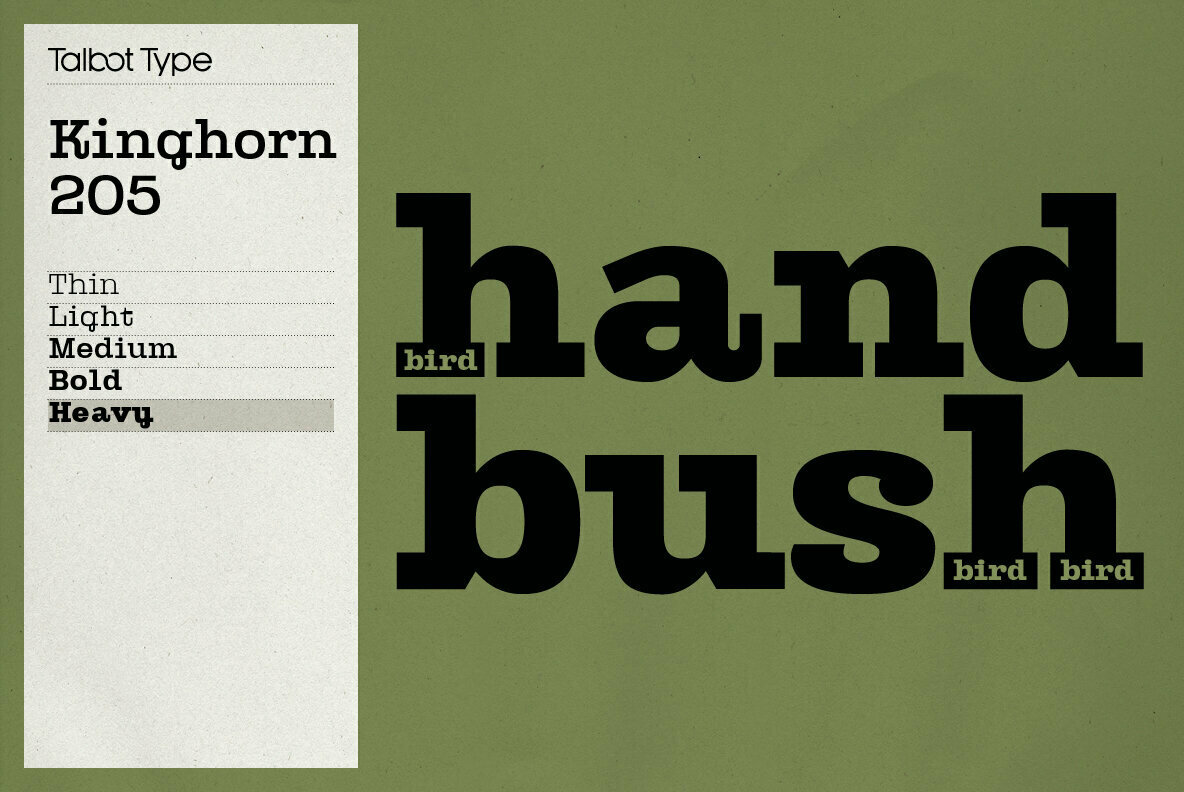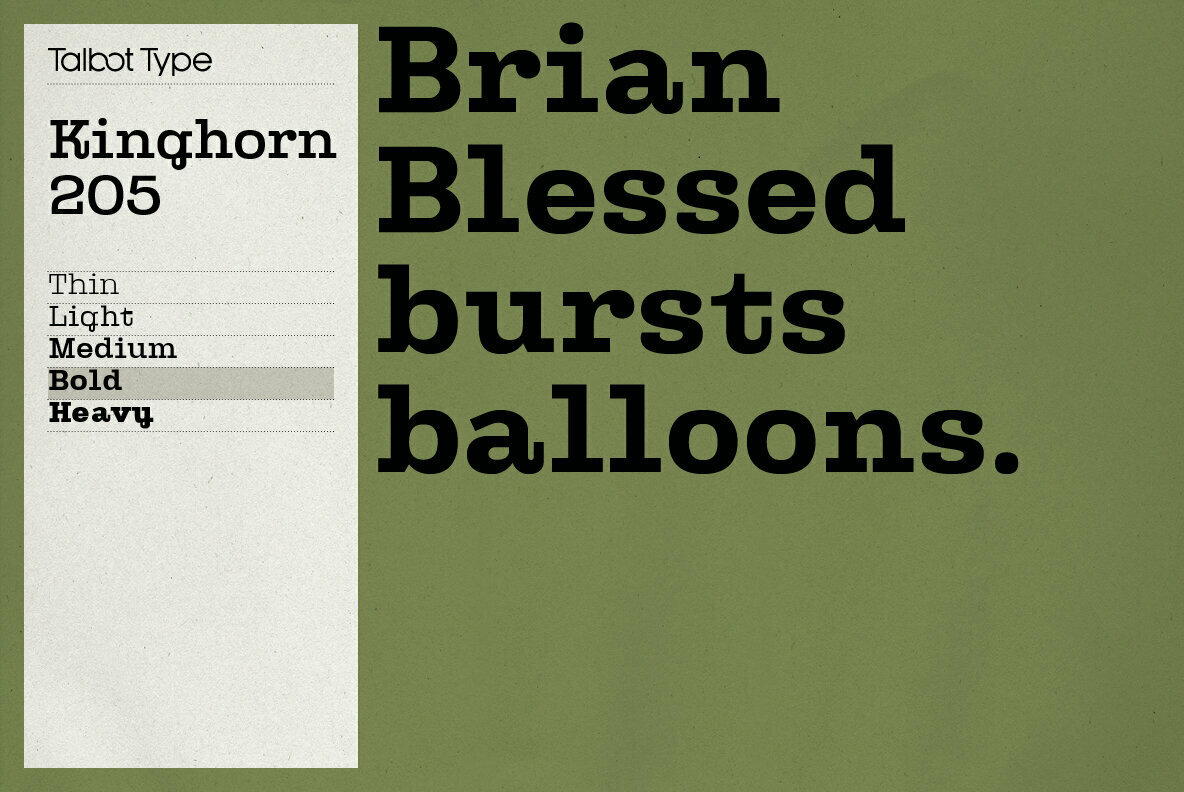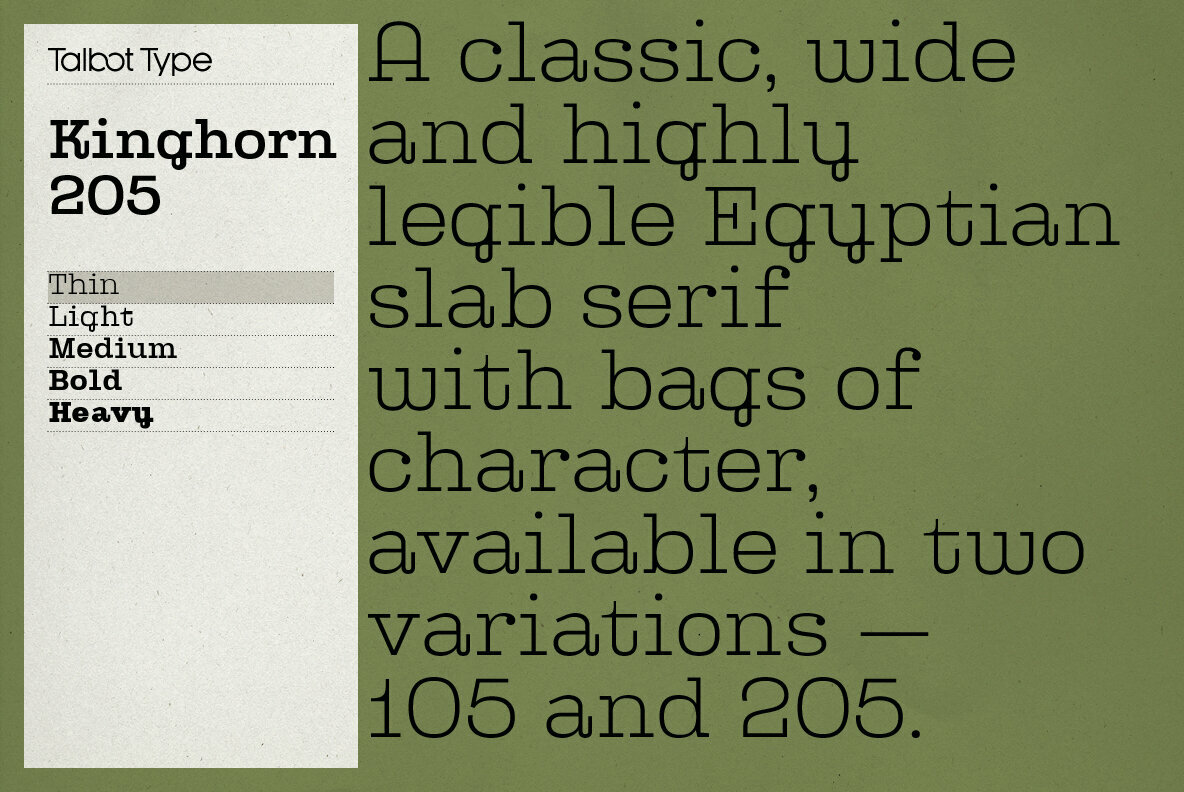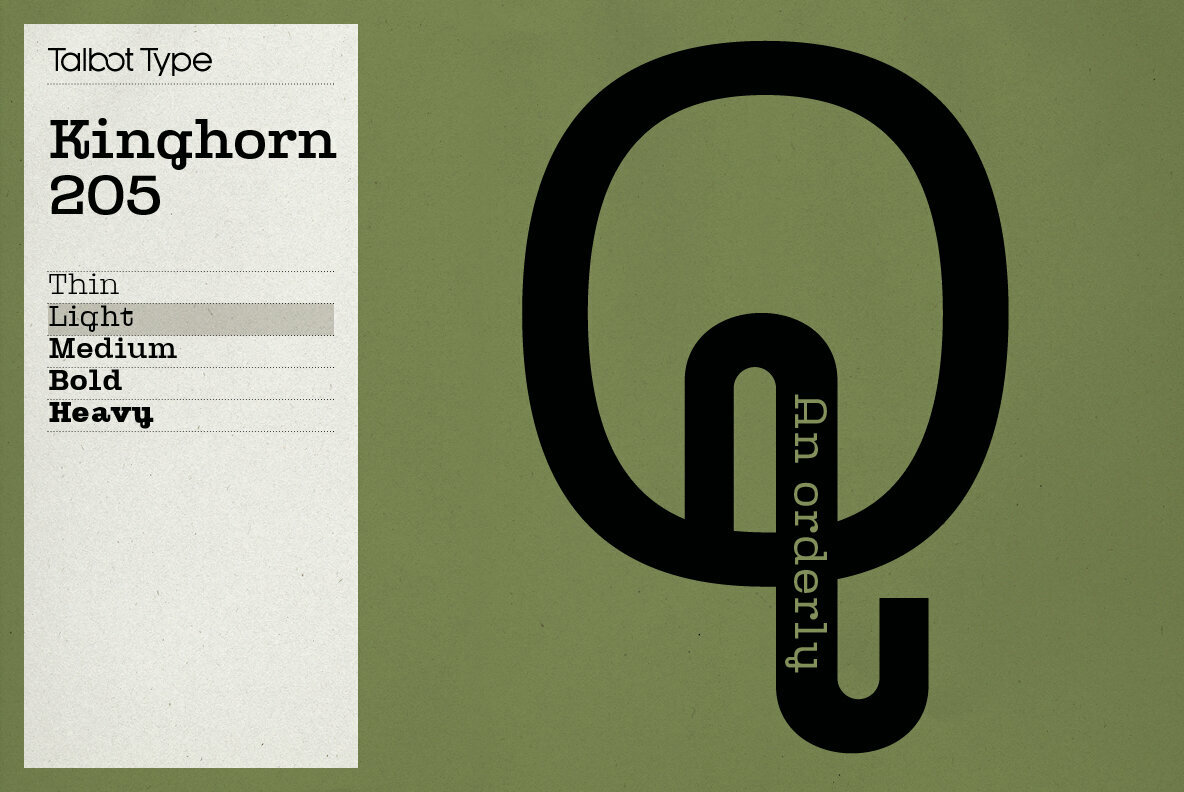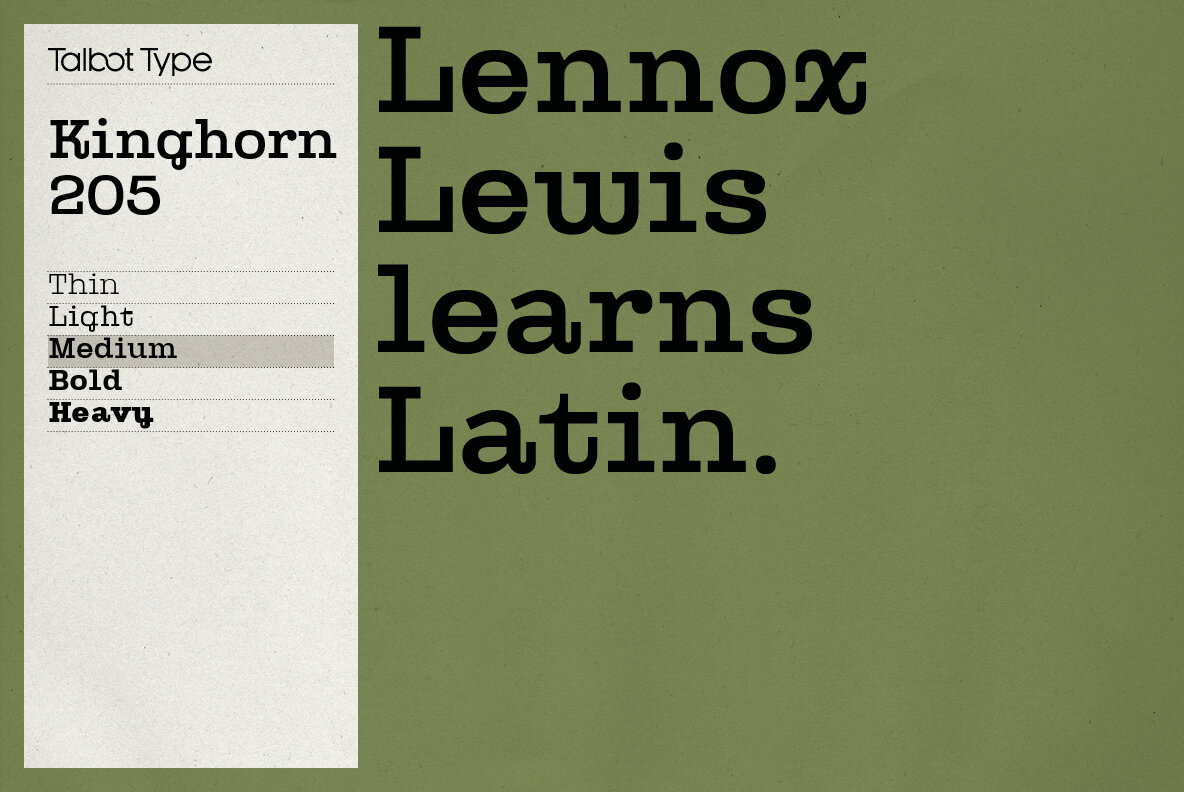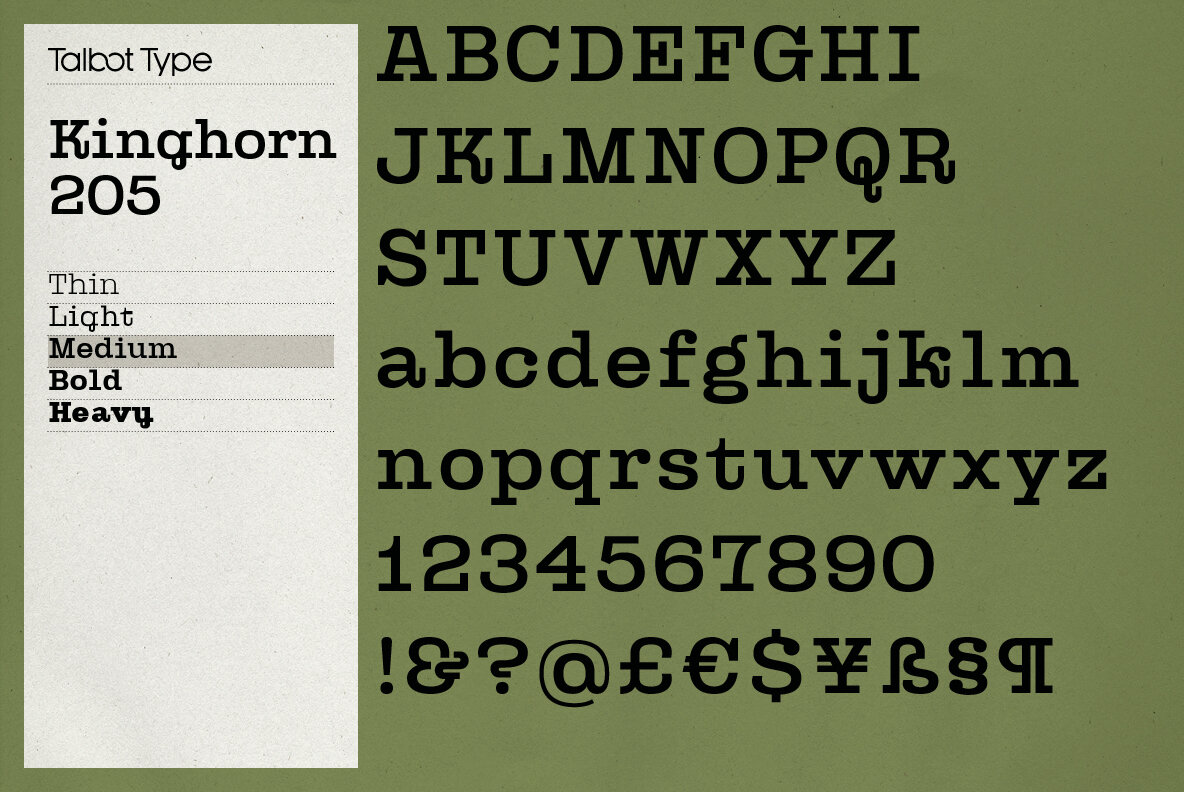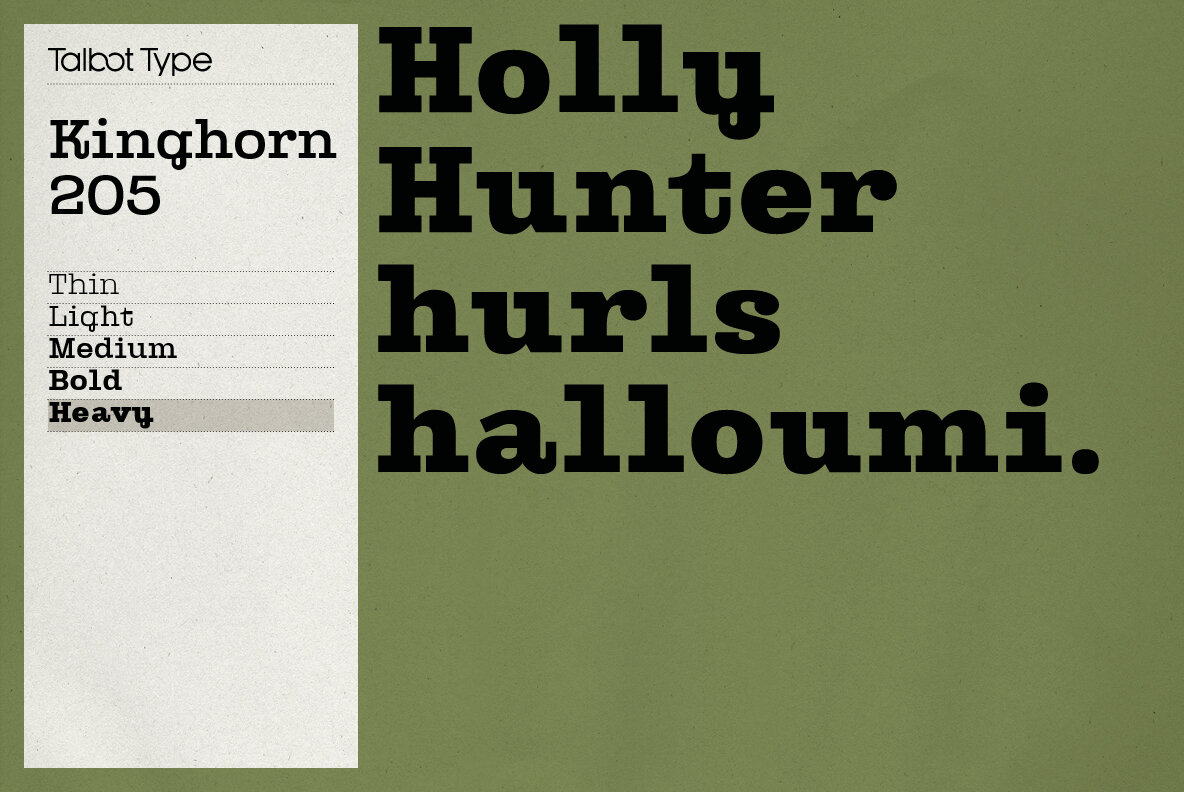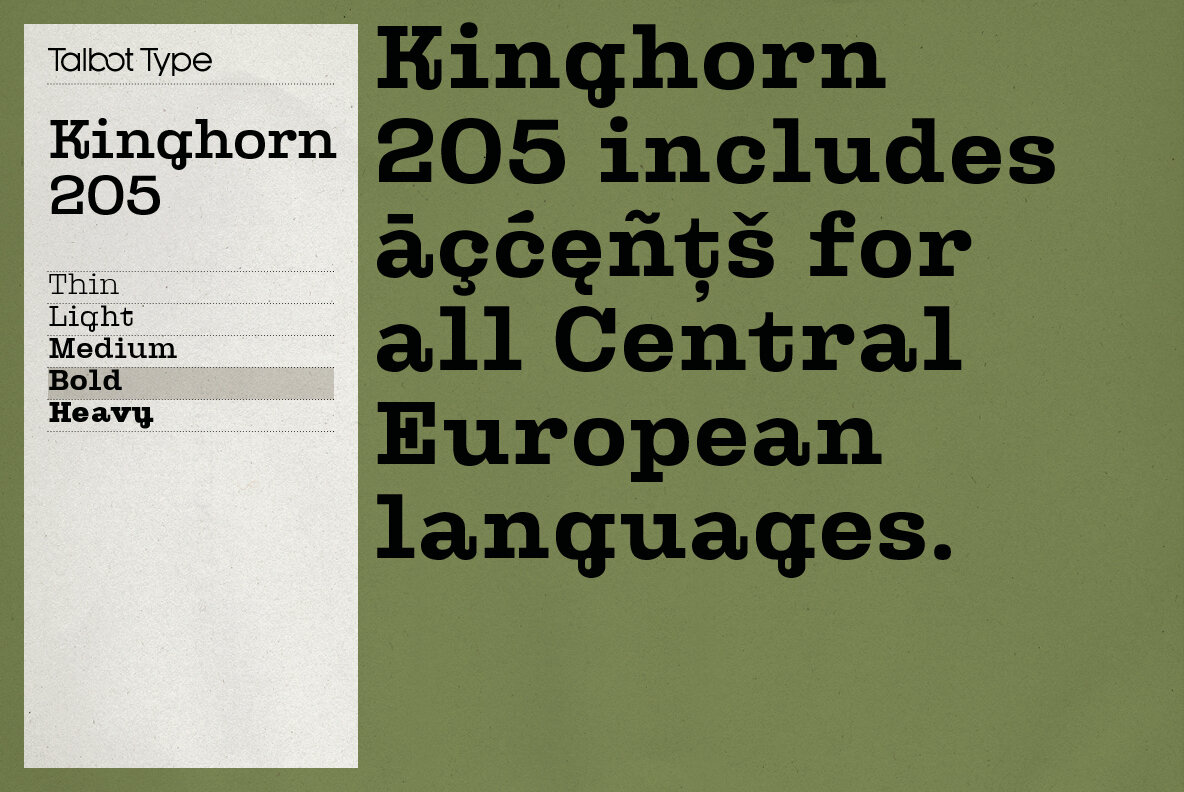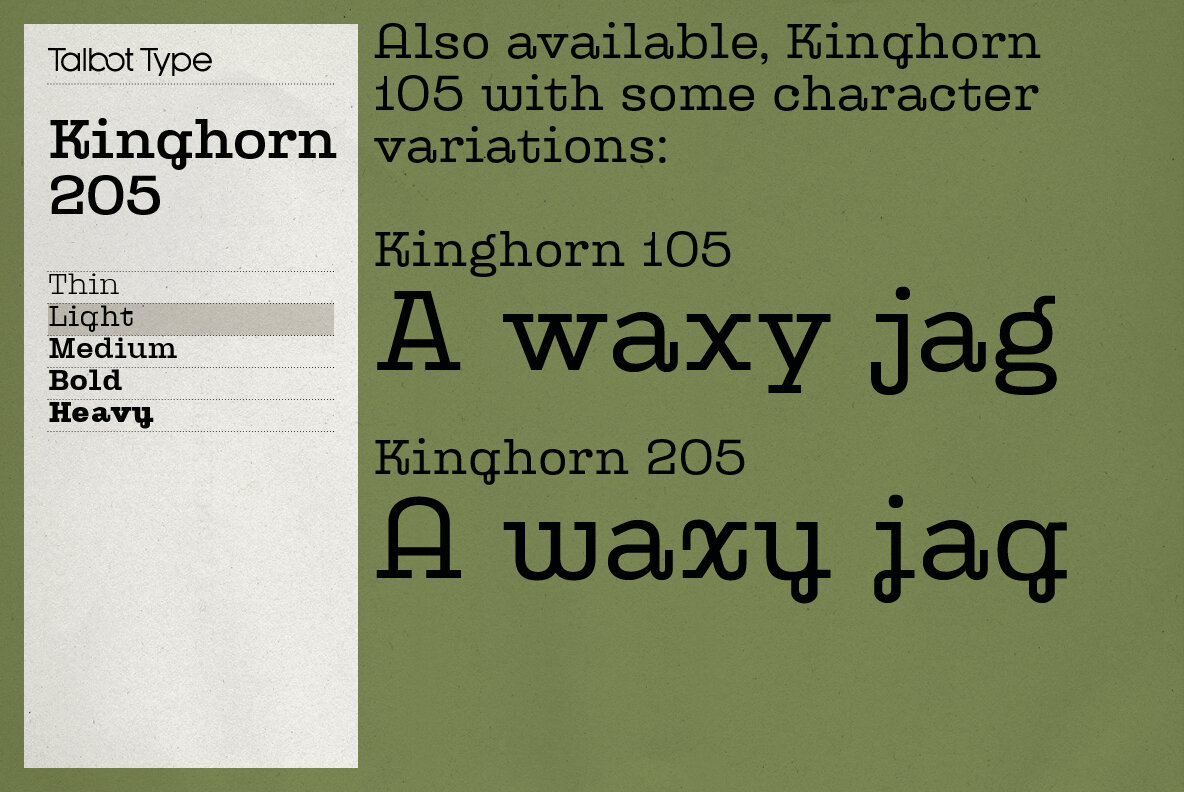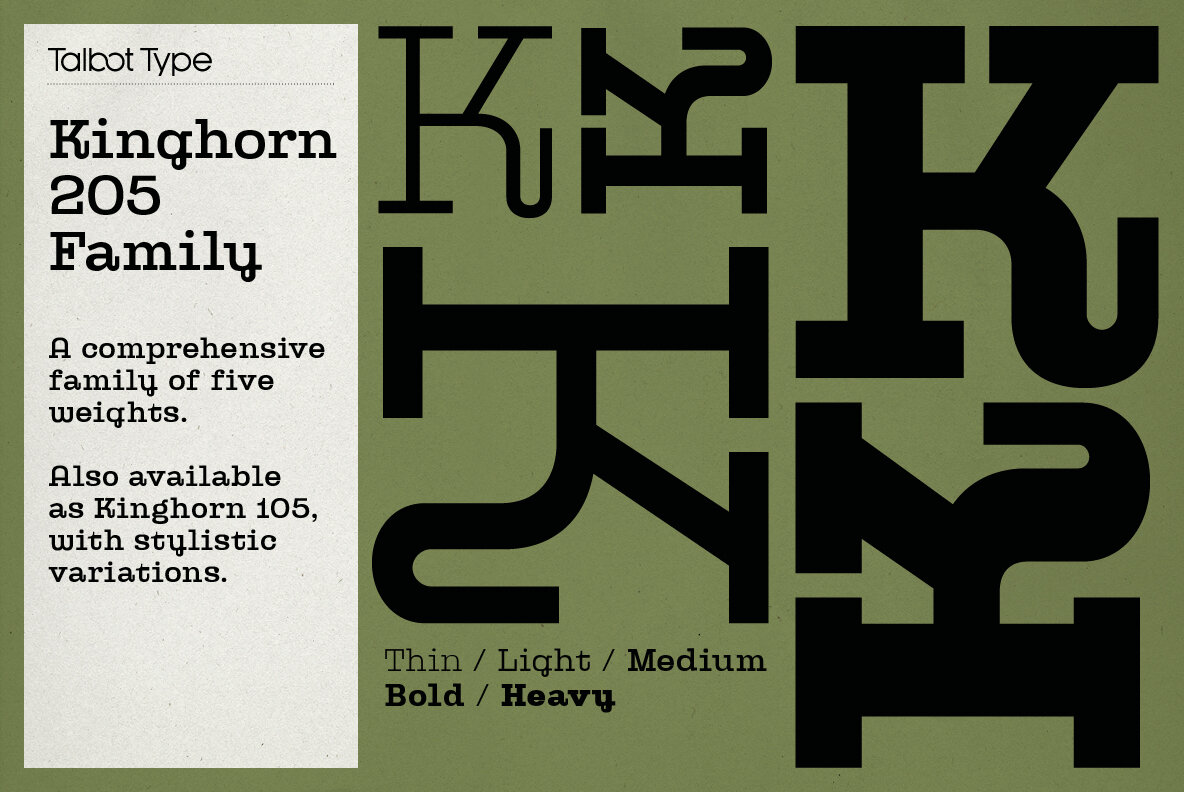
Kinghorn 205 Font
Kinghorn 205 is an Egyptian style slab-serif. The strokes are all of a roughly equal weight for an even, geometric look. Although original Egyptian slabs date from the early 19th century, the even look gives the font a balanced, contemporary look. It's intended mainly as a display font, but it's even strokes mean it remains legible even at smaller sizes. It's also available with some character variations as Kinghorn 105.